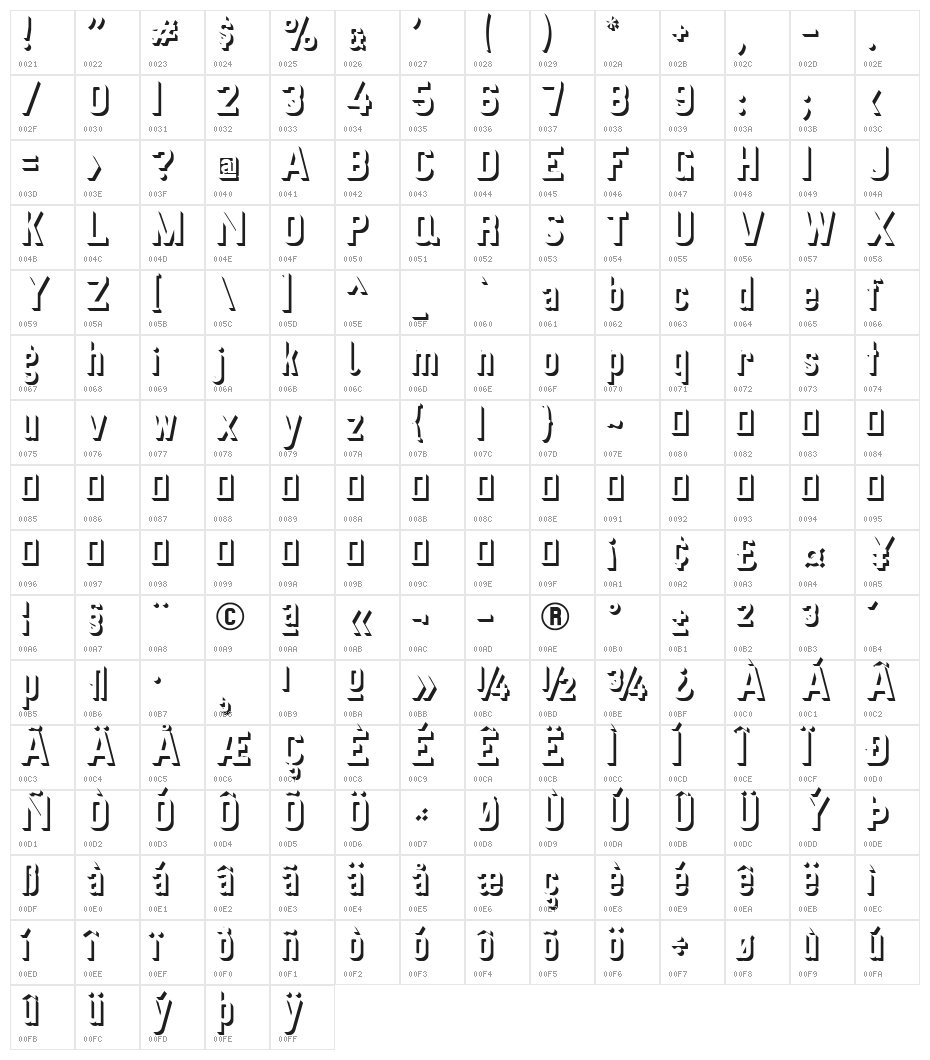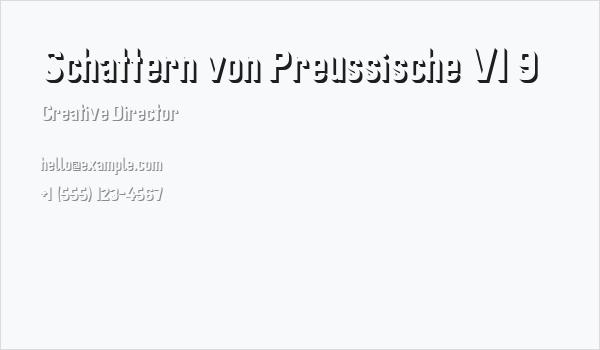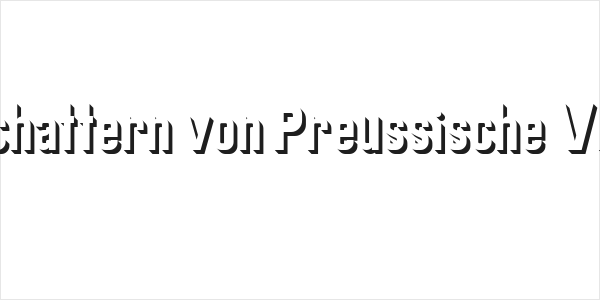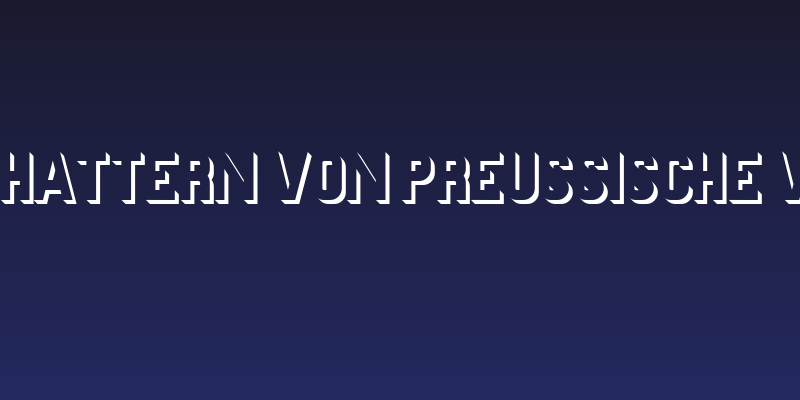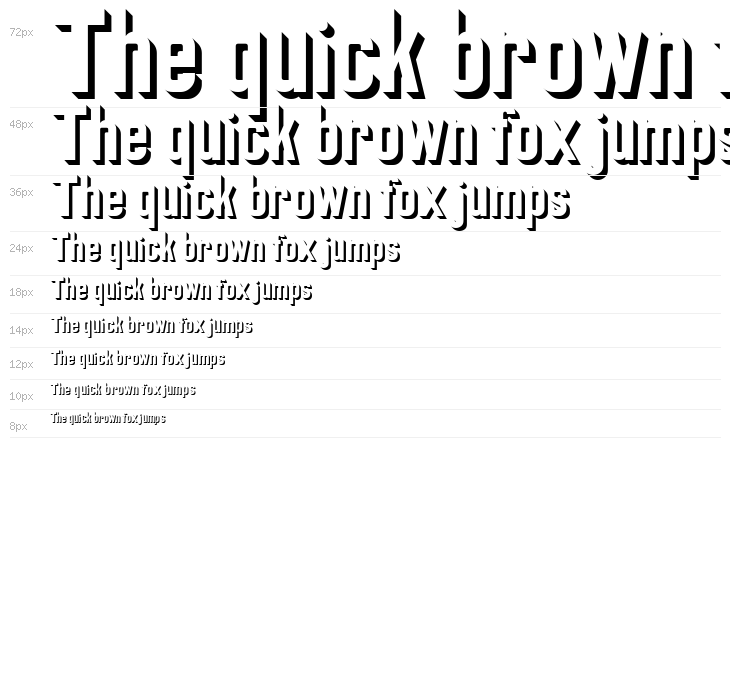
Schattern von Preussische VI 9 Font
Schattern von Preussische VI 9 Description
This font features a bold, three-dimensional appearance with a shadow effect that gives it a striking and impactful look. The uppercase and lowercase letters are designed with sharp edges and clean lines, creating a sense of modernity and strength. The numerals and special characters maintain this bold style, ensuring consistency across all elements. The font's unique shadowing adds depth, making it ideal for eye-catching designs. Its geometric shapes and solid structure make it suitable for projects that require a strong visual presence.